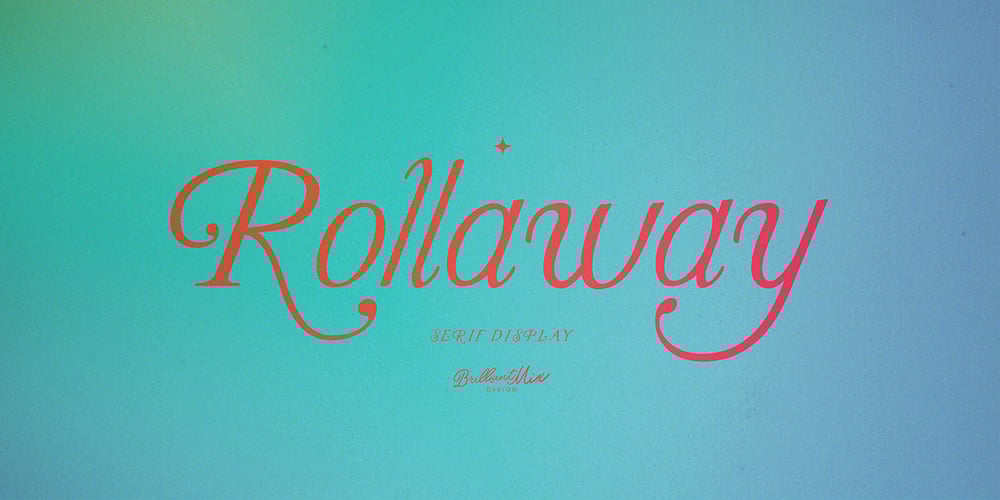
Rollaway Font Family was designed by Melinda Bennett and published by Brilliant Mix Design. Rollaway contains 2 styles and family package options. Retro display font was inspired by rollerskating which is a timeless treasure. The letters you can see them groove along and rollaway. Hand drawn essence with a illustrated to created whimsical story.